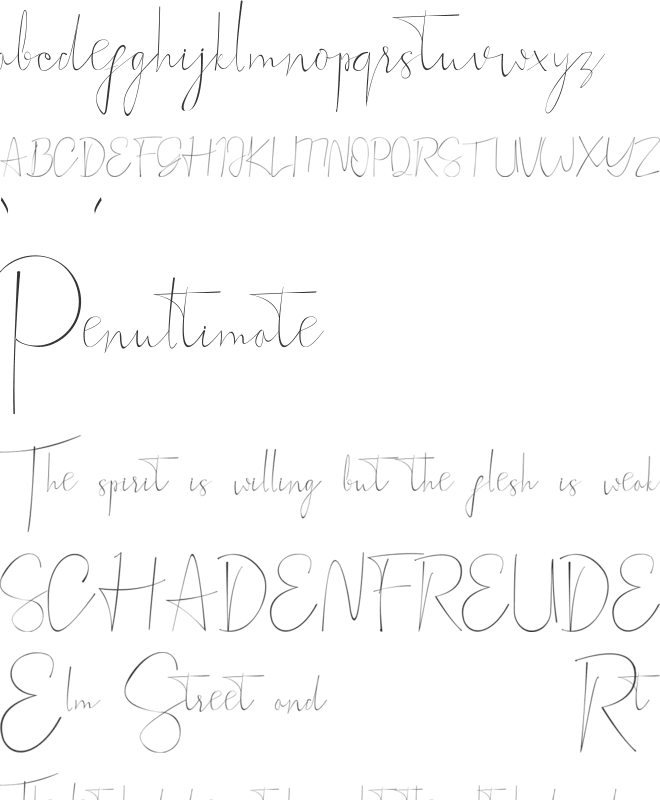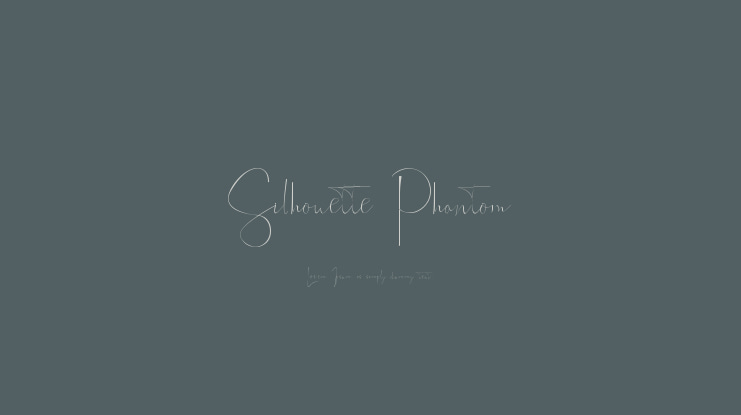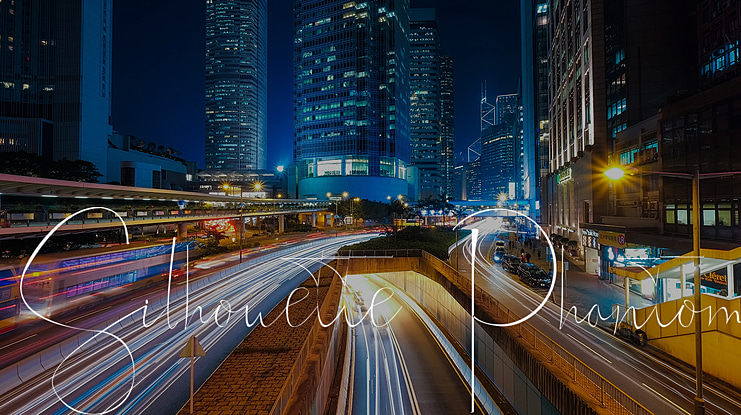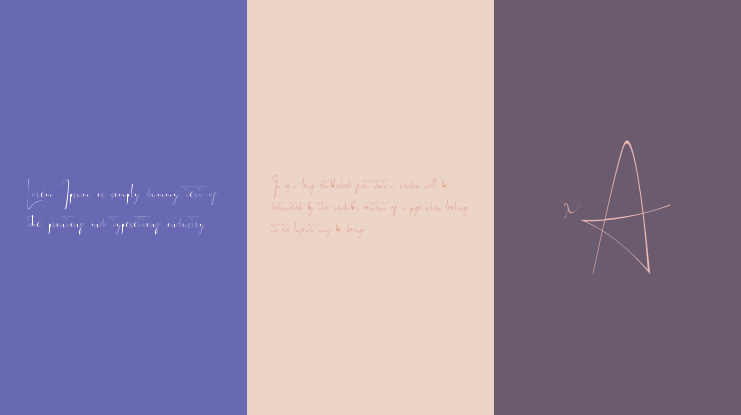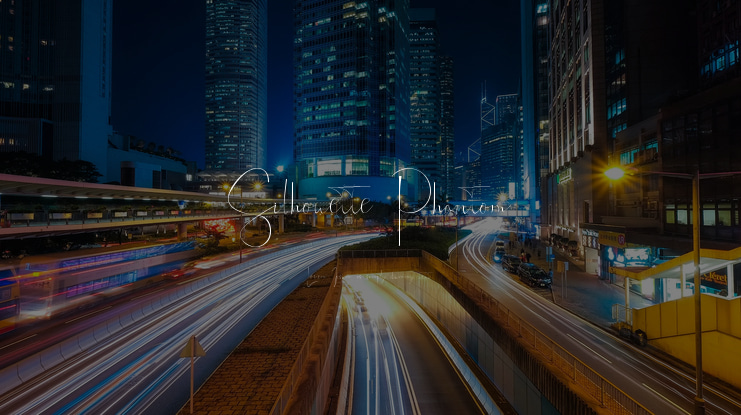
Silhouette Phantom Font
Silhouette Phantom (Signature Stylish) is font in a natural signature shape with a modern and stylish form. A good match alloy will make it look professional from all sides. Make sure this becomes a part of your design. This font is readable, catchy, and easy to use. This font is suitable for quotes, logo designs, magazines, business cards, and many other design projects.
Silhouette Phantom is includes: - full set uppercase and lowercase letter; - numerals; (Full Version) - multilingual support;(Full Version) - large number of punctuations; (Full Version) - ligatures, and swash. (Full Version)